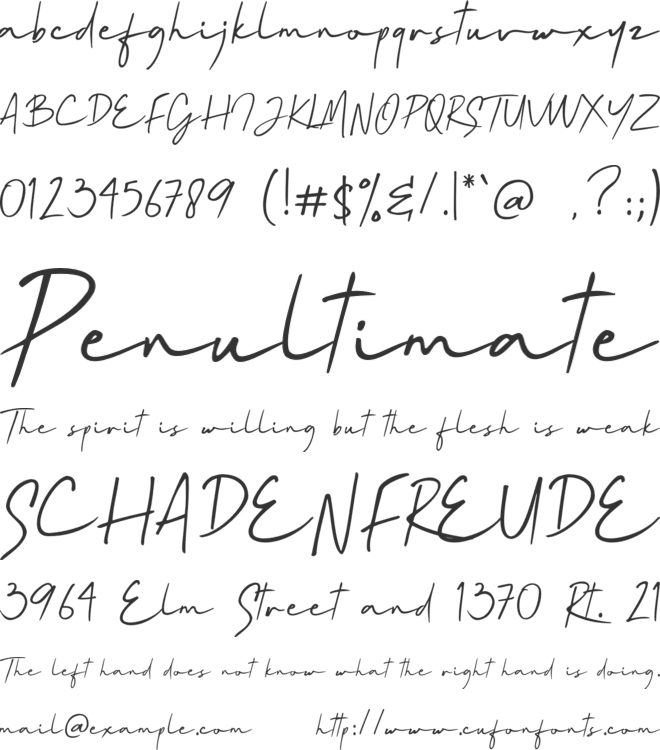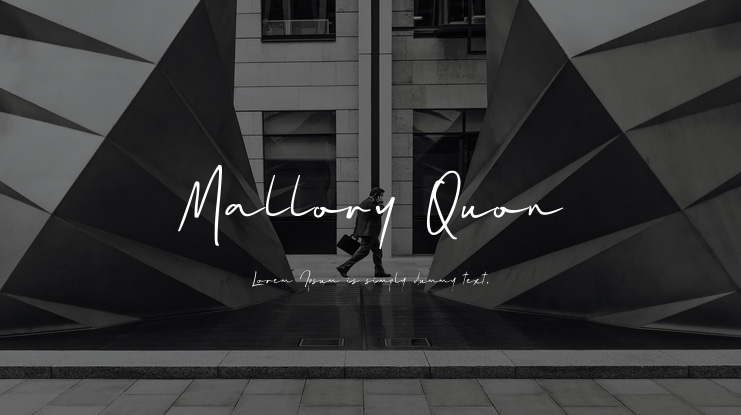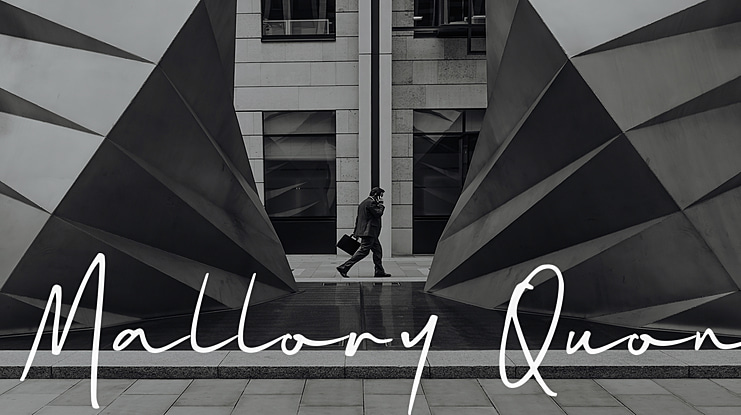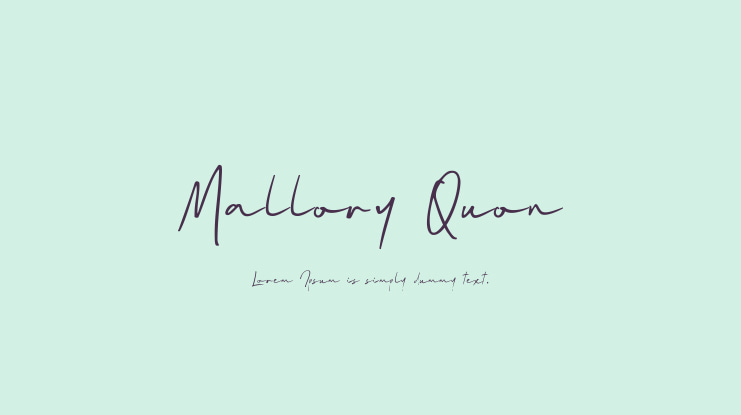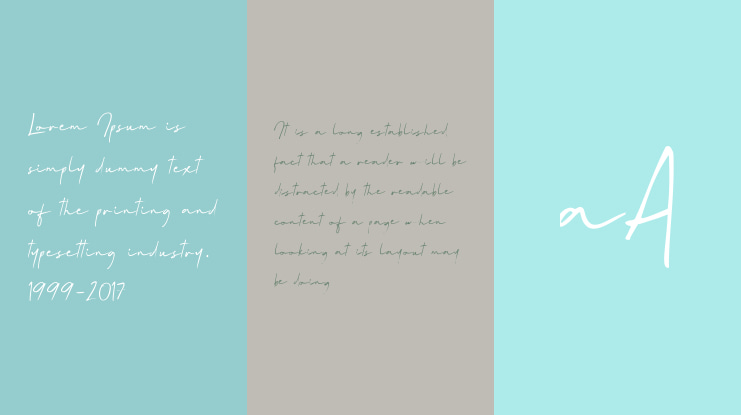
Mallory Quon Font
The Mallory Quon is an amazing signature script font. It’s perfect for branding, logos, quotes, prints, website and more.
Mallory Quon font preview
Mallory Quon Regular font